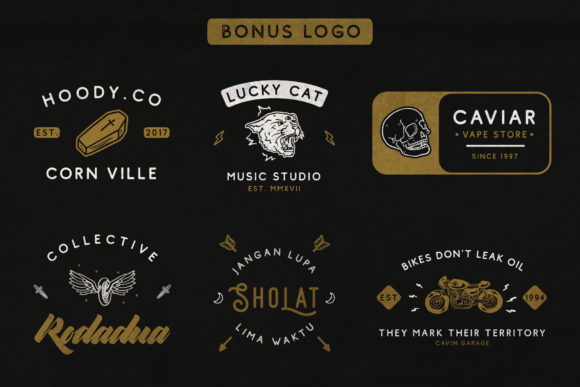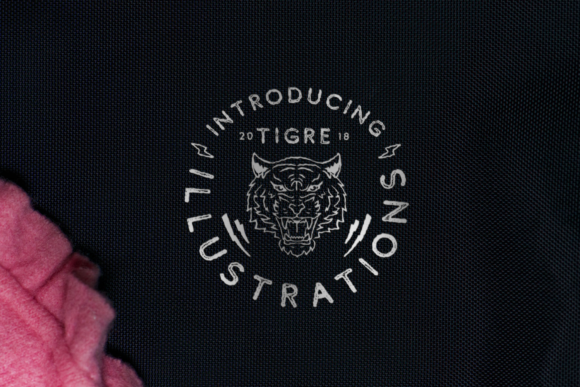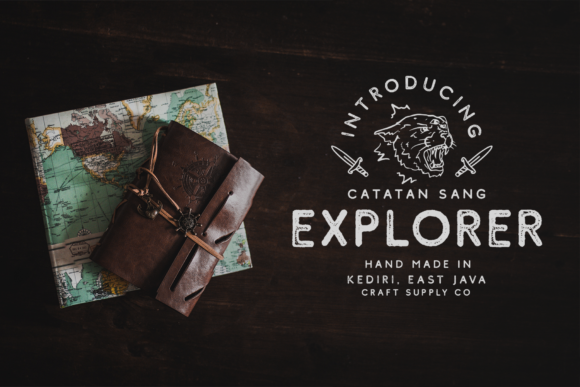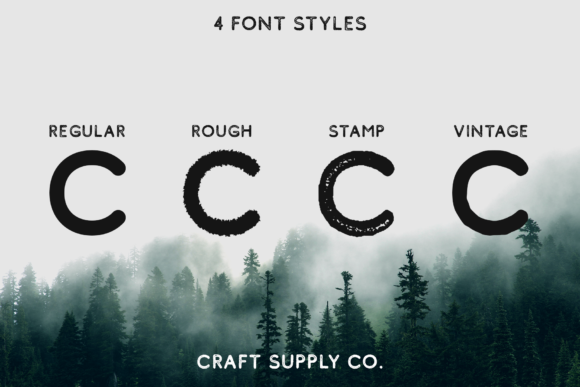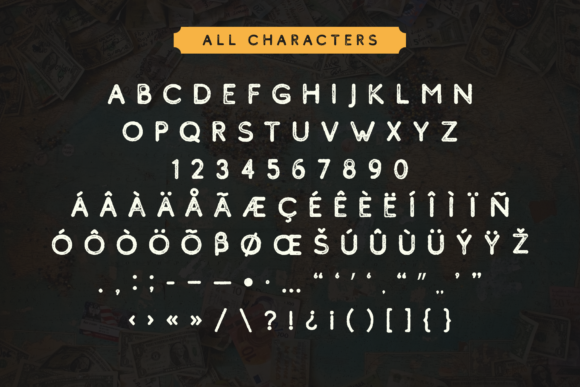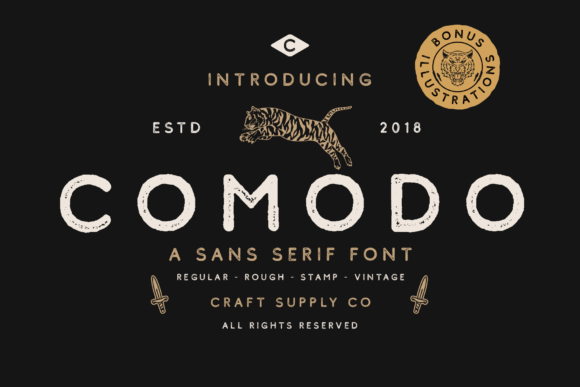
Introducing Comodo Font: The Perfect Blend of Professionalism and Playfulness
Are you a designer or crafter looking for a font that can elevate your print and digital designs? Look no further than the Comodo font family. This cozy sans serif font consists of 4 unique styles, making it an excellent choice for a wide range of design projects. In this article, we’ll dive into the features and benefits of the Comodo font, and explore how it can enhance your designs.
A Professional Look with a Playful Twist
The Comodo font family is designed to strike the perfect balance between professionalism and playfulness. Its clean and crisp lines make it an excellent choice for professional designs, such as packaging, brand identity, and marketing materials. At the same time, its friendly and approachable feel makes it suitable for creative designs, like crafts, quotes, invites, and more.
Key Features of the Comodo Font Family
- 4 Unique Styles: The Comodo font family consists of 4 distinct styles, providing you with a range of options to suit your design needs.
- Sans Serif Design: The font’s sans serif design makes it highly legible and versatile, suitable for both print and digital designs.
- Professional and Playful: The Comodo font strikes the perfect balance between professionalism and playfulness, making it ideal for a wide range of design projects.
Use Cases for the Comodo Font
The Comodo font family is incredibly versatile, making it suitable for a variety of design projects. Here are some use cases to consider:
- Packaging Design: The Comodo font’s professional look makes it an excellent choice for packaging design, helping your brand stand out on store shelves.
- Brand Identity: Create a consistent brand image with the Comodo font, suitable for logos, business cards, and marketing materials.
- Crafts and DIY Projects: Add a personal touch to your crafts and DIY projects with the Comodo font’s playful and friendly feel.
- Digital Designs: Use the Comodo font in digital designs, such as social media graphics, blog posts, and website headers.
Why Choose the Comodo Font?
With so many fonts available, why choose the Comodo font family? Here are a few compelling reasons:
- Legibility: The Comodo font’s sans serif design ensures high legibility, making it easy to read in various design contexts.
- Versatility: With 4 unique styles, the Comodo font family offers a range of options to suit your design needs.
- Unique Blend of Professionalism and Playfulness: The Comodo font’s balanced design makes it suitable for both professional and creative design projects.
Tips for Using the Comodo Font
To get the most out of the Comodo font family, consider the following tips:
- Mix and Match Styles: Combine different styles within the Comodo font family to create visual interest and hierarchy in your designs.
- Experiment with Colors: The Comodo font looks great in a variety of colors, so don’t be afraid to experiment and find the perfect hue for your design.
- Pair with Other Fonts: Try pairing the Comodo font with other fonts to create a unique and visually appealing design.
The Comodo font family is an excellent choice for designers and crafters looking for a versatile and visually appealing font. With its perfect blend of professionalism and playfulness, it’s suitable for a wide range of design projects, from packaging and brand identity to crafts and digital designs. By incorporating the Comodo font into your design workflow, you’ll be able to create stunning and effective designs that capture your audience’s attention.